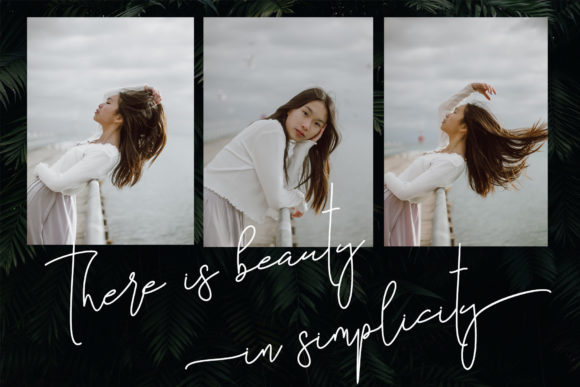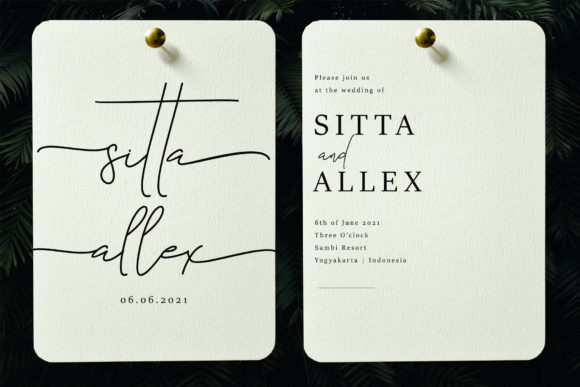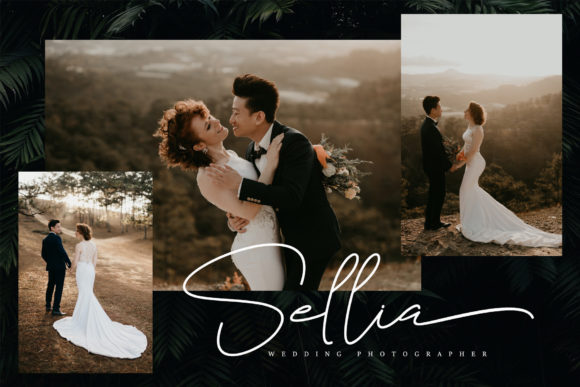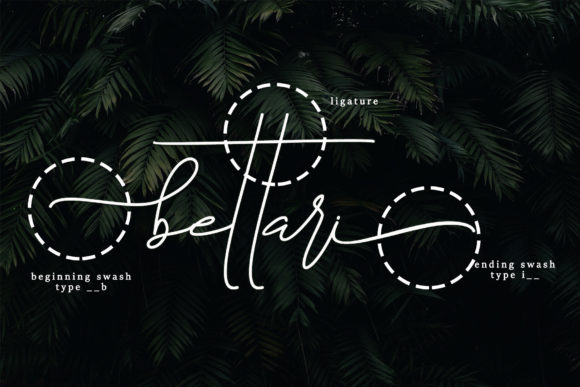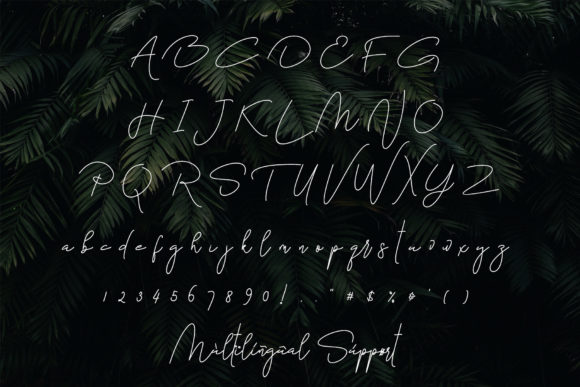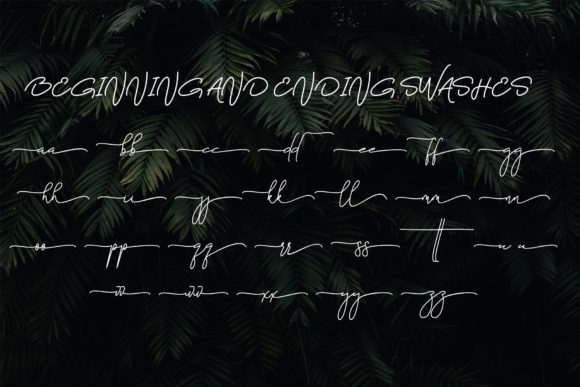
Bettari Font: Elevate Your Designs with Elegant Signature Script
In the world of typography, a signature script font can make all the difference in adding a touch of elegance and sophistication to your designs. Introducing Bettari Font, a stunning script font that boasts beautiful swashes and ligatures, perfect for a variety of design projects. Whether you’re a designer, crafter, or DIY enthusiast, Bettari Font is sure to become your go-to choice for creating visually appealing and professional-looking designs.
What is Bettari Font?
Bettari Font is a signature script font that exudes elegance and refinement. Its beautiful swashes and ligatures give it a unique and distinctive look that’s perfect for adding a handwritten touch to your designs. With its flowing curves and sophisticated style, Bettari Font is ideal for a range of applications, from wedding invitations and thank you cards to quotes, greeting cards, logos, and business cards.
Key Features of Bettari Font
- Beautiful Swashes and Ligatures: Bettari Font features stunning swashes and ligatures that add a touch of elegance and sophistication to your designs.
- Signature Script Style: Its signature script style makes it perfect for adding a personal and handwritten touch to your designs.
- Highly Versatile: Bettari Font is suitable for a wide range of design projects, from wedding invitations and greeting cards to logos and business cards.
Uses of Bettari Font
Bettari Font is an incredibly versatile font that can be used for a variety of design projects. Here are some ideas to get you started:
- Wedding Invitations: Add a touch of elegance and sophistication to your wedding invitations with Bettari Font.
- Thank You Cards: Create beautiful and heartfelt thank you cards with Bettari Font’s stunning swashes and ligatures.
- Quotes and Posters: Use Bettari Font to create eye-catching quotes and posters that are sure to grab attention.
- Greeting Cards: Design stunning greeting cards for special occasions like birthdays, anniversaries, and holidays.
- Logos and Branding: Use Bettari Font to create elegant and sophisticated logos and branding materials for your business.
- Business Cards: Create professional-looking business cards with Bettari Font’s signature script style.
Why Choose Bettari Font?
With so many fonts available, why choose Bettari Font? Here are just a few reasons:
- Unique and Distinctive: Bettari Font’s beautiful swashes and ligatures make it stand out from other fonts.
- Elegant and Sophisticated: Its signature script style adds a touch of elegance and sophistication to your designs.
- Highly Versatile: Bettari Font is suitable for a wide range of design projects, making it a great addition to your font library.
| Font Name | Bettari Font |
| Author | tinyhandletter |
In conclusion, Bettari Font is a stunning signature script font that’s perfect for adding a touch of elegance and sophistication to your designs. With its beautiful swashes and ligatures, highly versatile style, and ease of use, Bettari Font is sure to become your go-to choice for a wide range of design projects. Whether you’re a designer, crafter, or DIY enthusiast, Bettari Font is a great addition to your font library.